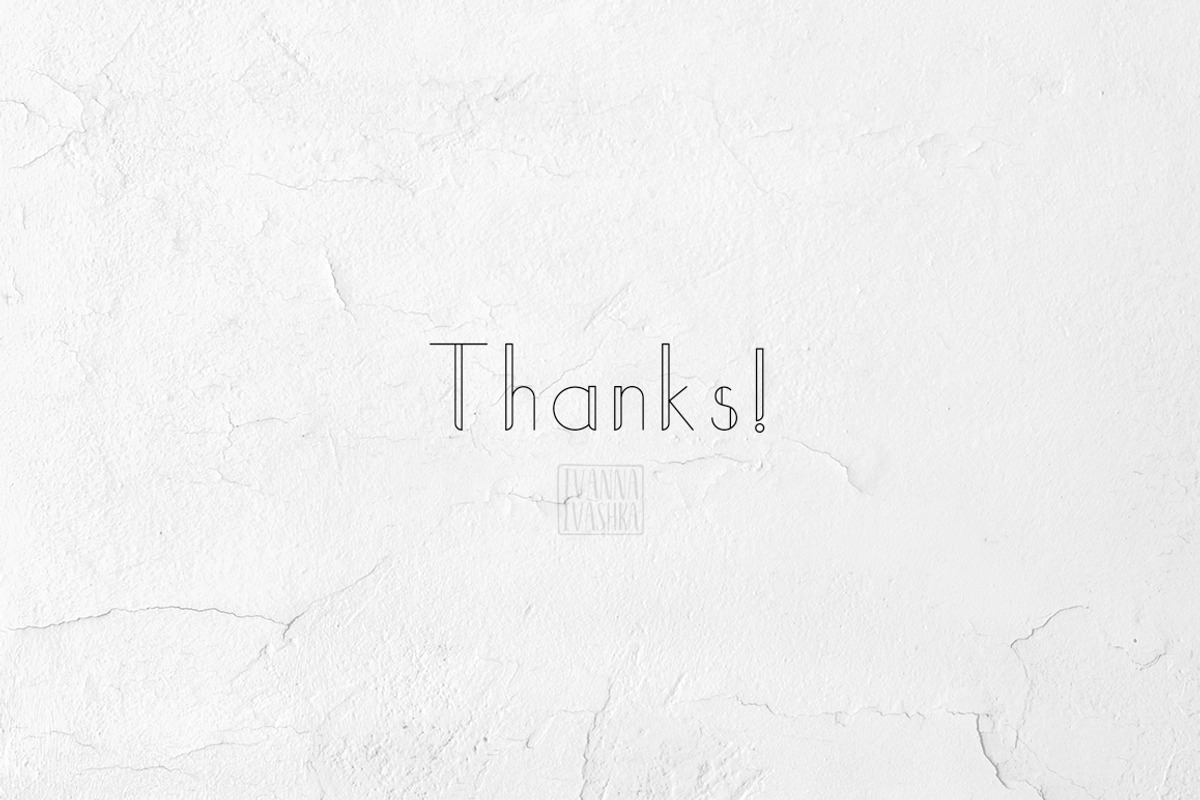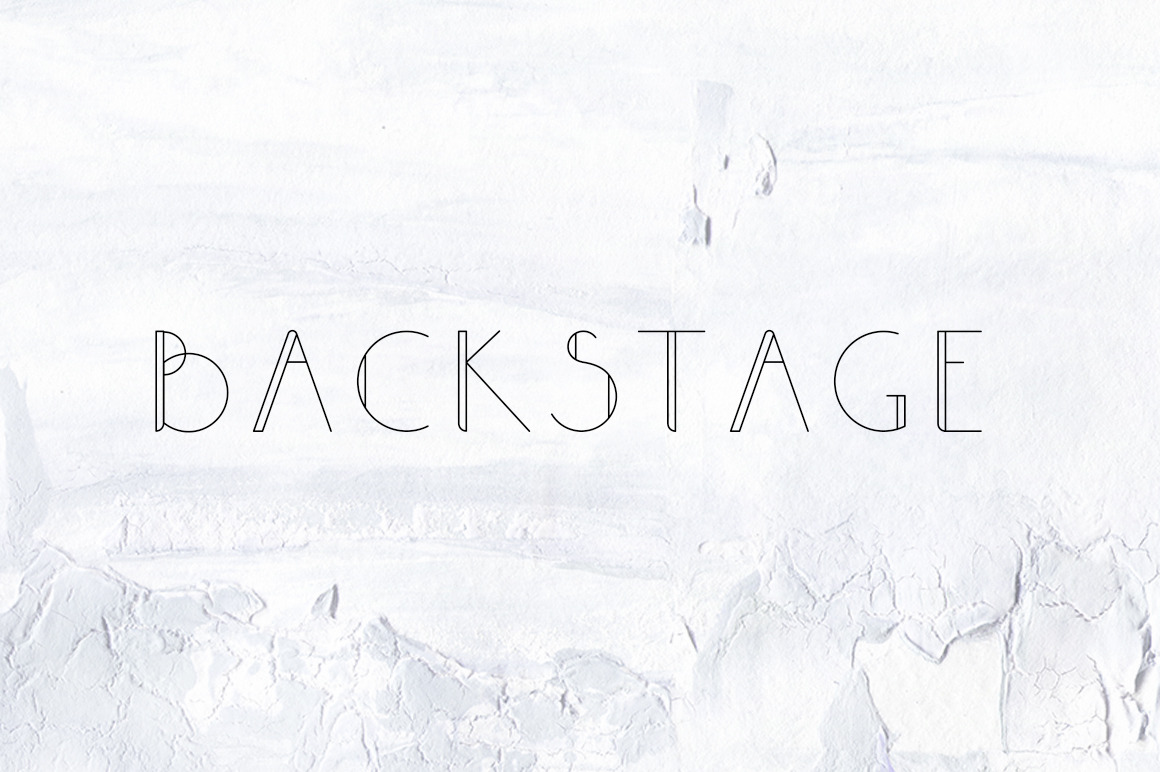
BACKSTAGE Sans Serif Font
Introducing Backstage font, a simple but clean and elegant sans serif, combines flow of art deco with updated, clean letterforms. It includes both Roman and Cyrillic charachters and contains an uppercase alphabet with numbers and symbols. Perfect for magazine layouts, invitations, logos, or other artwork.